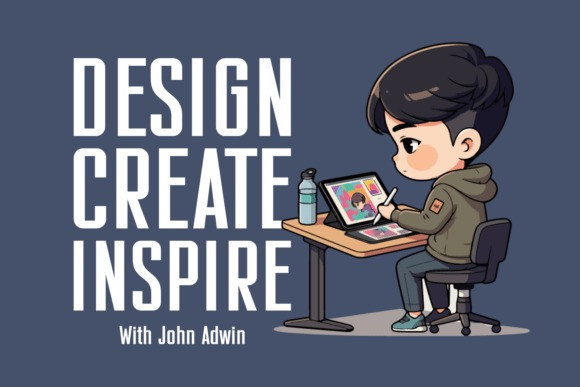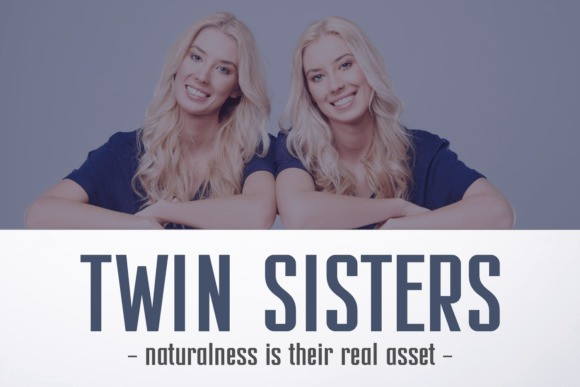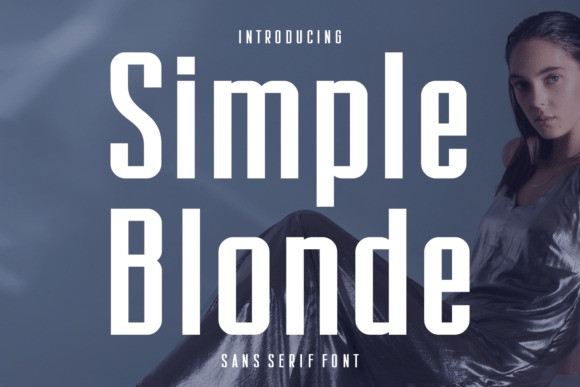
Simple Blonde Font
Simple Blonde Font, a sans serif font. The moody and modern blue-tinted background complements the font’s strong, geometric, and chic character, making it suitable for contemporary branding, headlines, and fashion-forward projects.